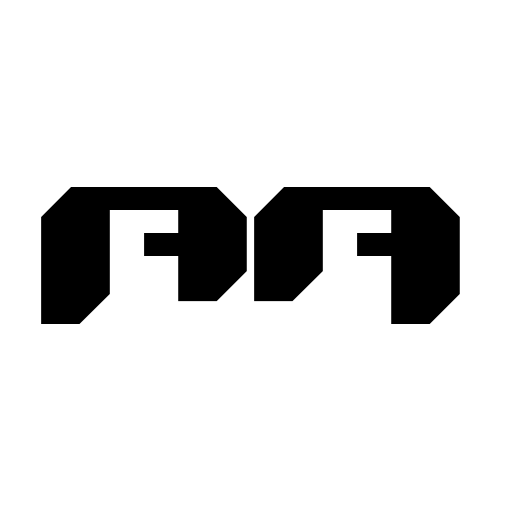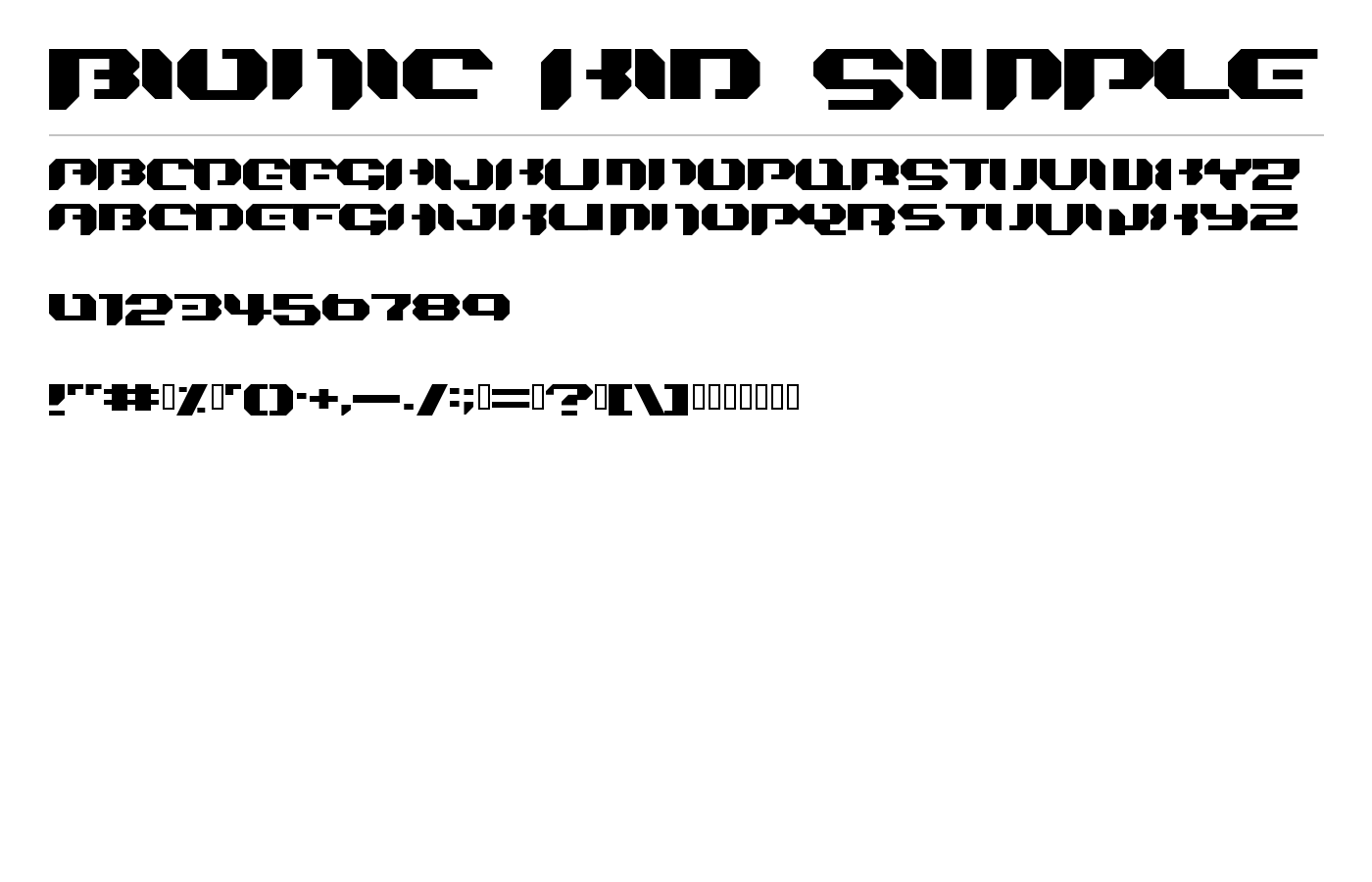
Bionic Kid Simple is a bold, futuristic sans serif font with a heavy weight and a compact, geometric structure that gives it a strong, robotic feel. Its sharp edges and blocky letterforms create a high-tech, modern vibe ideal for tech, gaming, or sci-fi themed designs. This font works best in logos, headlines, and posters where a distinct, eye-catching style is needed to convey innovation and energy.
Bionic Kid Simple Font